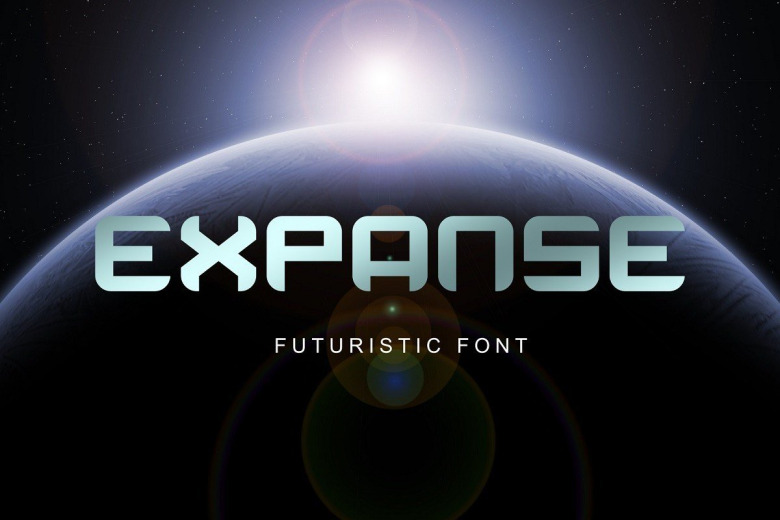
Expanse Font
Expanse Display Font is a minimal and futuristic bold display typeface. Geometric typefaces can harken back and visually tie themselves to so many genres, from constructivist posters, to techno club flyers, to raw industrial era power. Its natural and unique style makes it incredibly fitting to a large pool of designs.